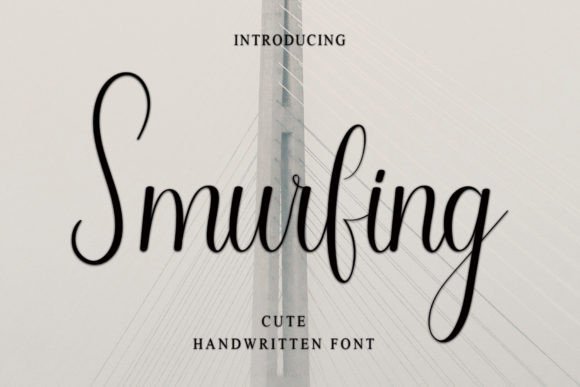
Discover Smurfing Font, the elegant and beautiful handwritten font designed by PiPi Creative. With its captivating style that blends neatness and beauty, Smurfing is the perfect choice for your resume design, adding a personal touch that makes it stand out from the crowd.
Immerse yourself in the elegance of Smurfing, where every letter is crafted with precision and flows together seamlessly. Its timeless style exudes sophistication and class, ensuring your resume leaves a lasting impression on potential employers. Let Smurfing be your creative companion as you craft a resume that speaks volumes about your professionalism and attention to detail.
With Smurfing, you'll have the power to transform your resume into a masterpiece. Its unique and distinct style will captivate recruiters, drawing their attention to your qualifications and making you the standout candidate. Say goodbye to dull and monotonous resumes; with Smurfing, your resume will shine brightly, reflecting your individuality and passion.
Harness the power of Smurfing to create designs that leave an unforgettable impact. Whether it's a personal project, a marketing campaign, or a social media post, Smurfing will elevate your designs with its captivating aesthetics. Its versatility knows no bounds, allowing you to explore a world of creative possibilities and bring your ideas to life in a stunning manner.